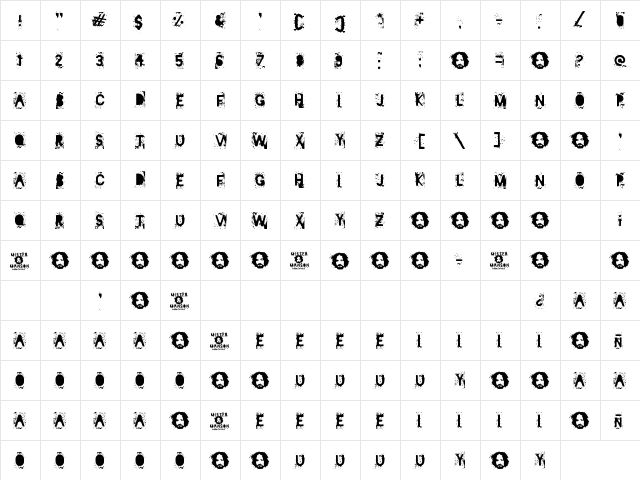
Mister Manson Regular
Design Context for Mister Manson Typeface
Mister Manson is a composed and adaptable typeface that performs quietly and consistently across a wide range of design contexts.